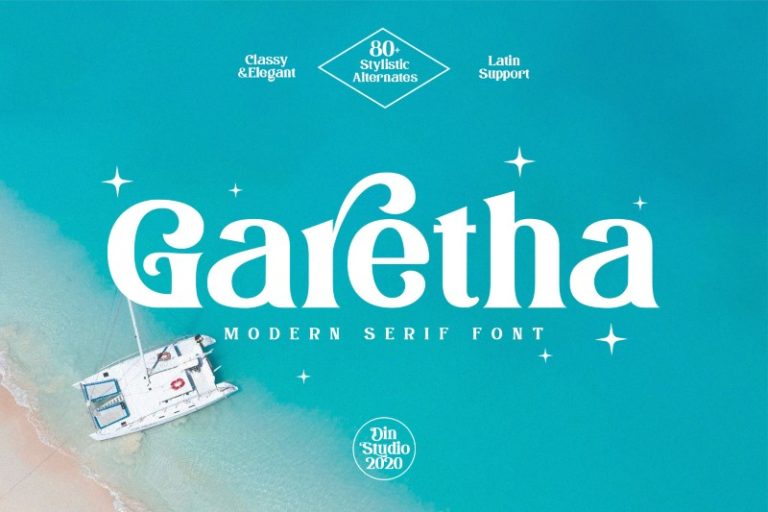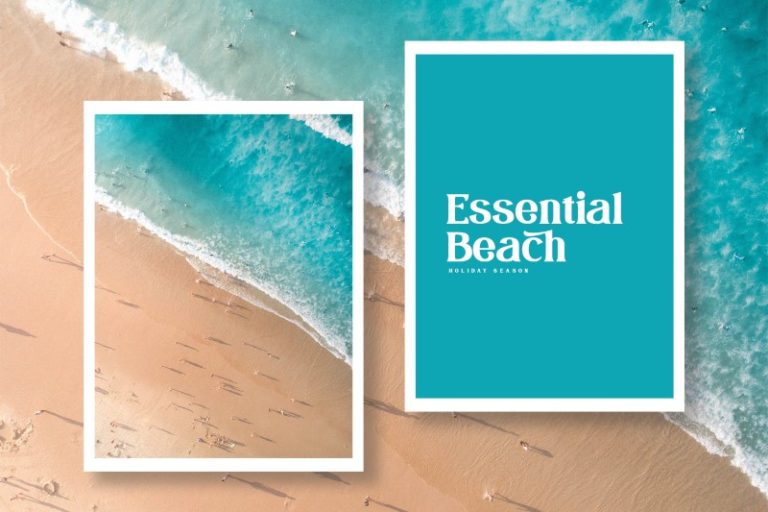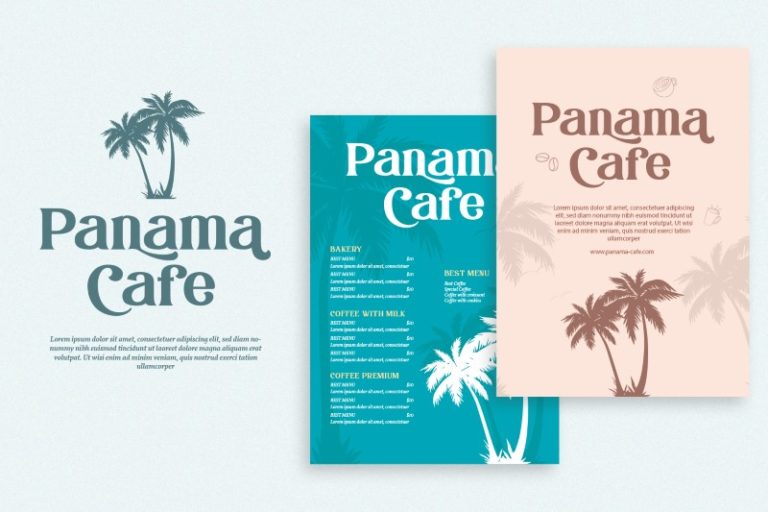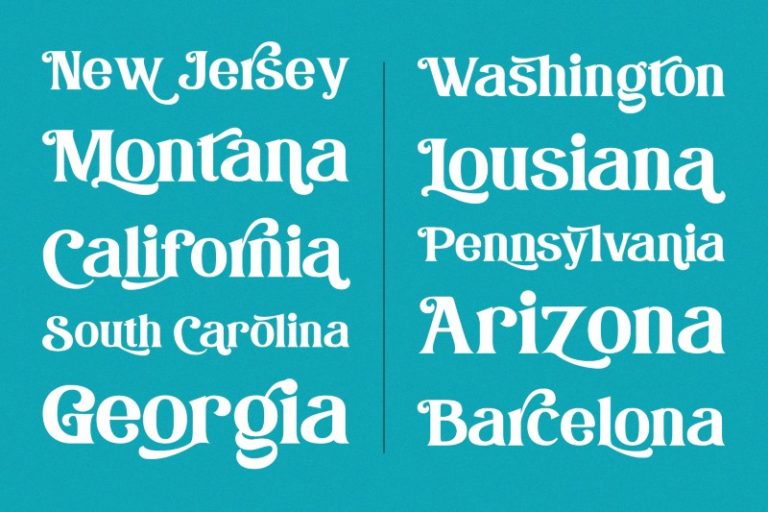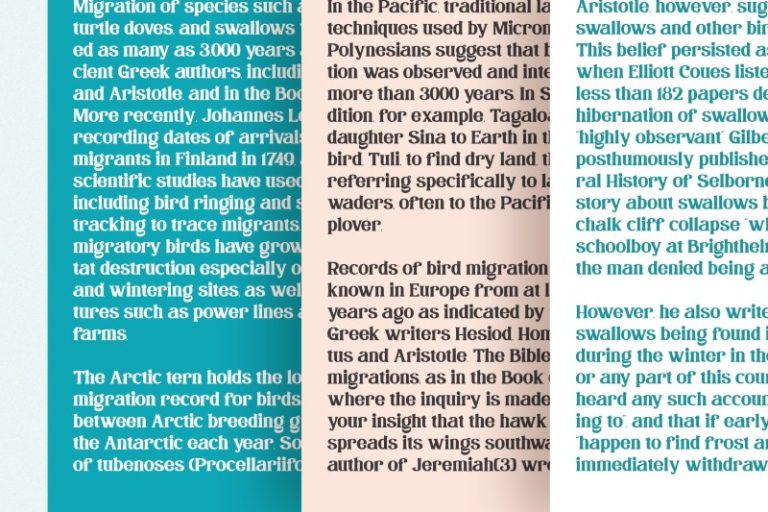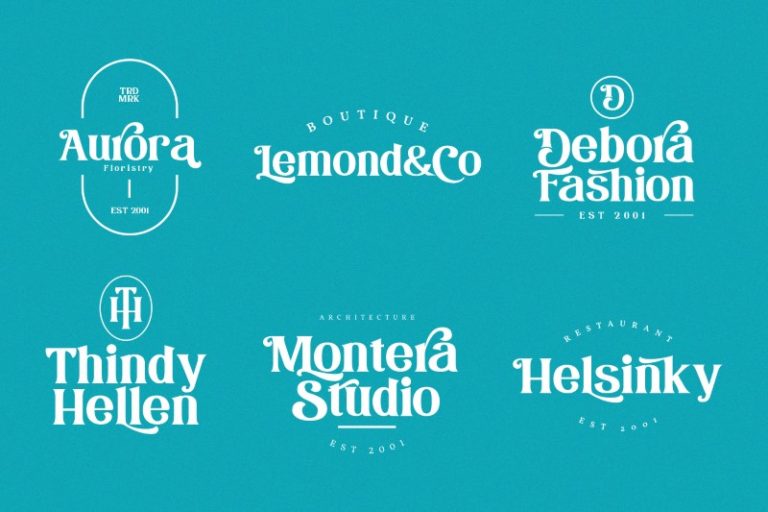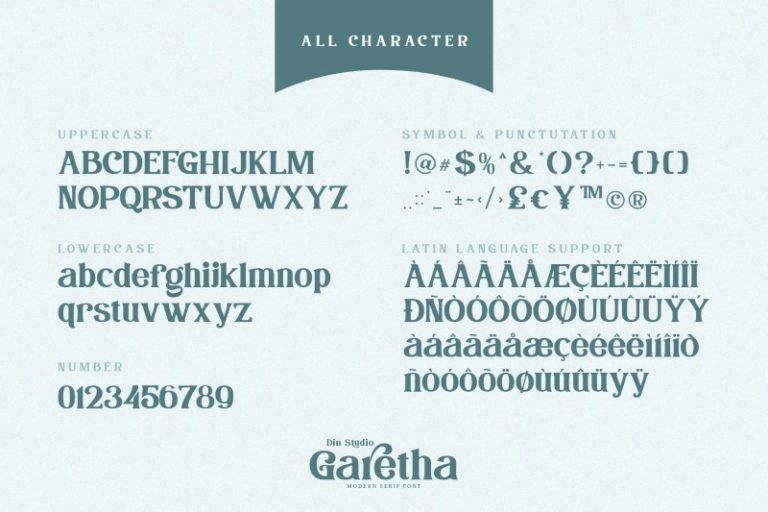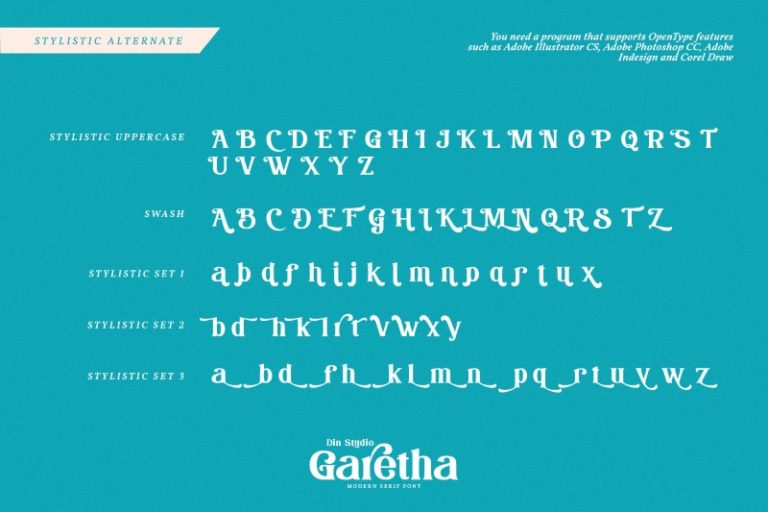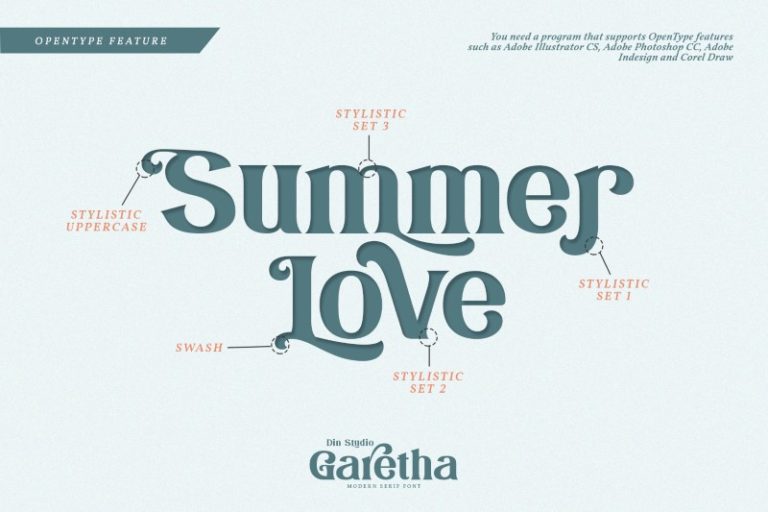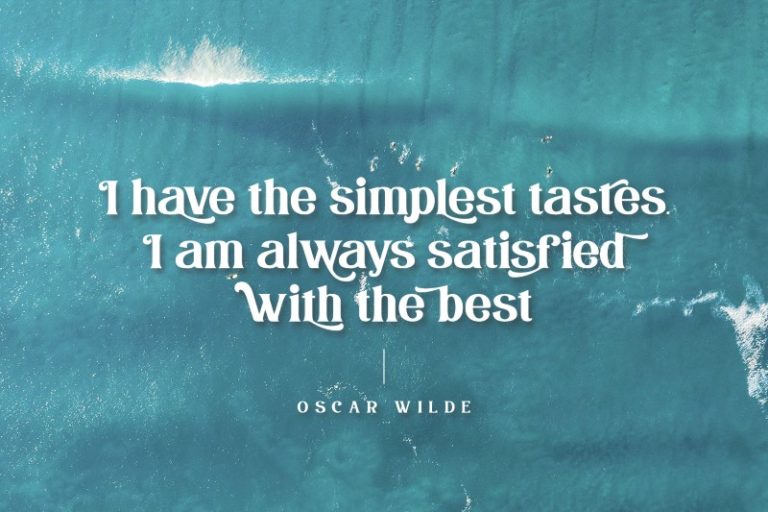
Garetha – Modern Serif Font
Garetha
Hello, Everyone! Let’s welcome Garetha, a Modern Sans Serif Font made for any professional project brandings which is best applied for brandings, printings, weddings, and quotes. Every letter has a unique and beautiful touch. See the previews above to get some inspiration on how you can use them. Enjoy the font!
Features include:
- Swashes
- Stylish Sets
Afrikaans, Albanian, Asu, Basque, Bemba, Bena, Breton, Catalan, Chiga, Cornish, Danish, Dutch, English, Faroese, Filipino, Friulian, Galician, German, Gusii, Indonesian, Irish, Italian, Kabuverdianu, Kalenjin, Kinyarwanda, Luo, Luxembourgish, Luyia, Machame, Makhuwa-Meetto, Makonde, Malagasy, Manx, Morisyen, North Ndebele, Norwegian Bokmål, Norwegian Nynorsk, Nyankole, Oromo, Portuguese, Quechua, Romansh, Rombo, Rundi, Rwa, Samburu, Sango, Sangu, Scottish Gaelic, Sena, Shambala, Shona, Soga, Somali, Spanish, Swahili, Swedish, Swiss German, Taita, Teso, Uzbek (Latin), Vunjo, Zulu